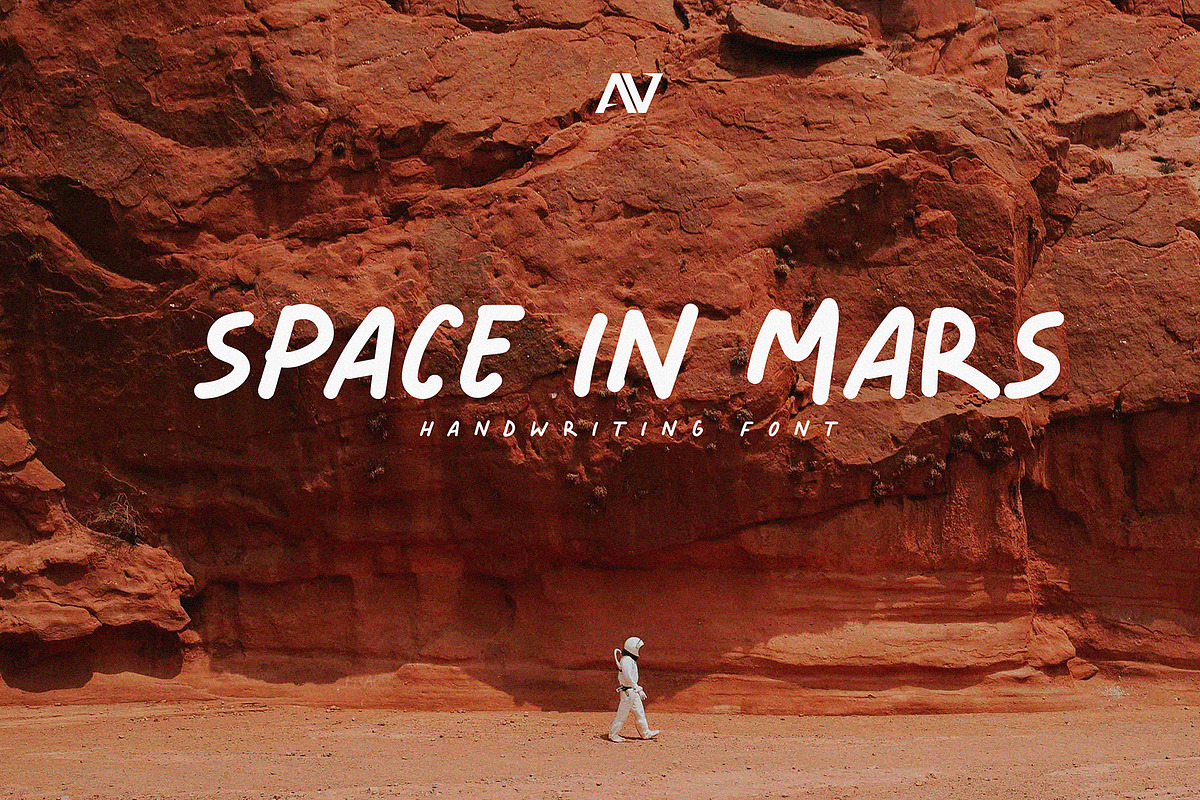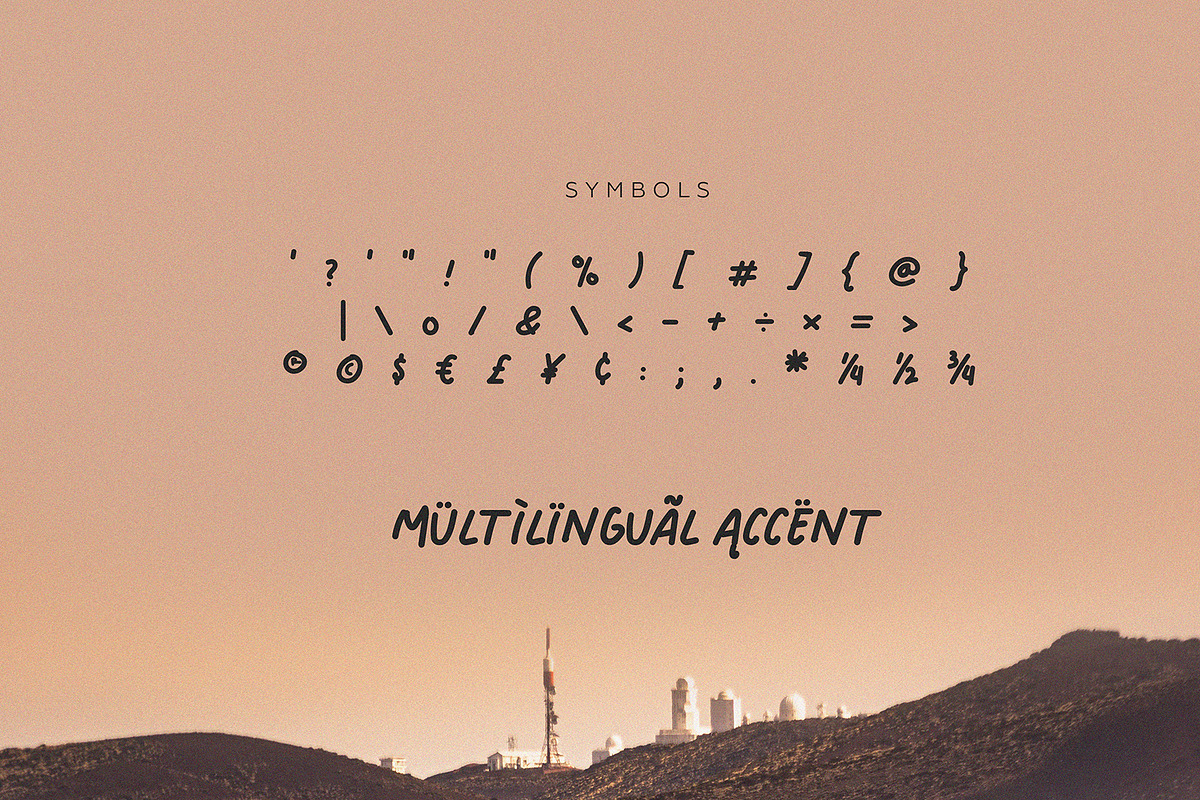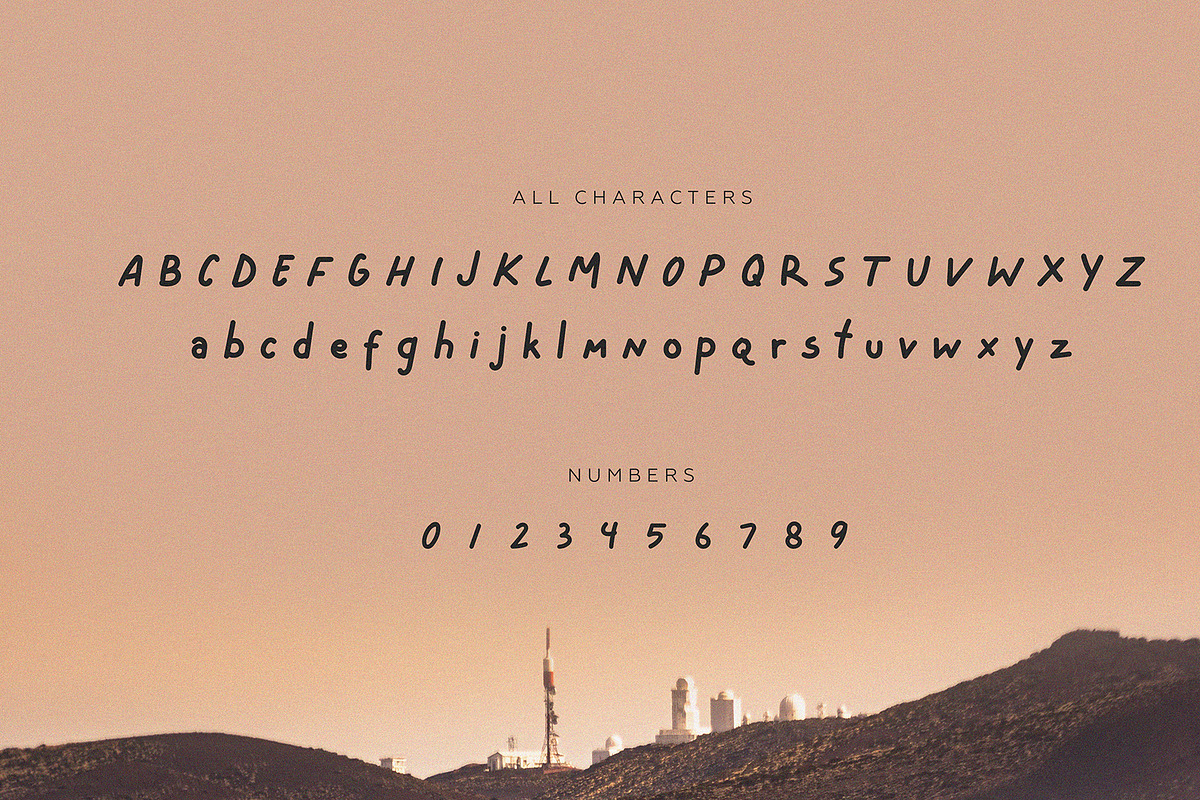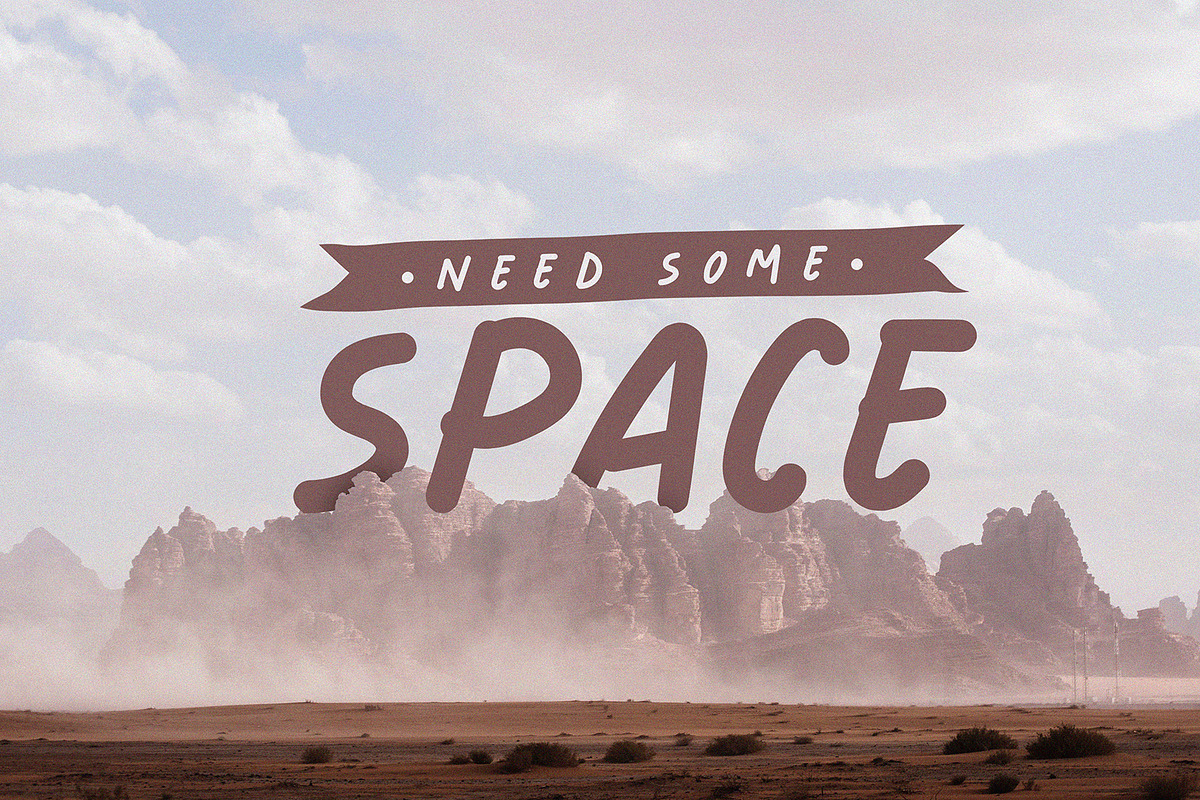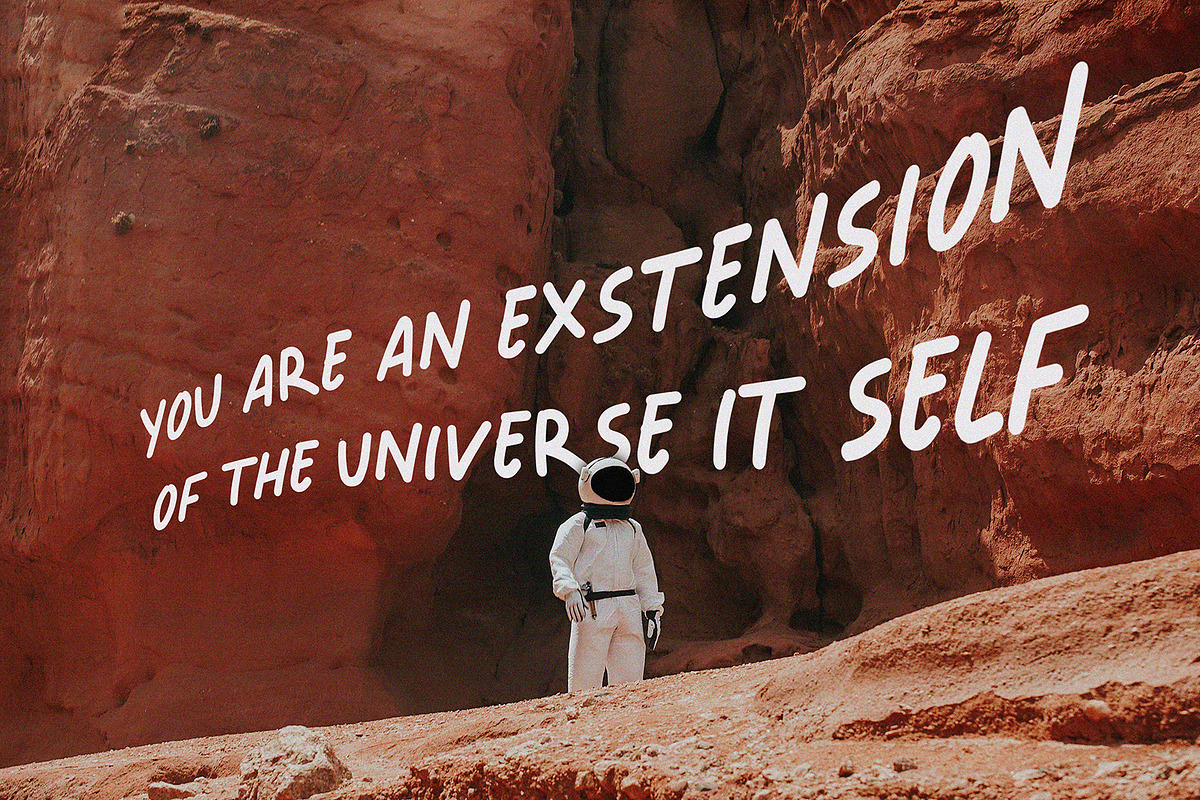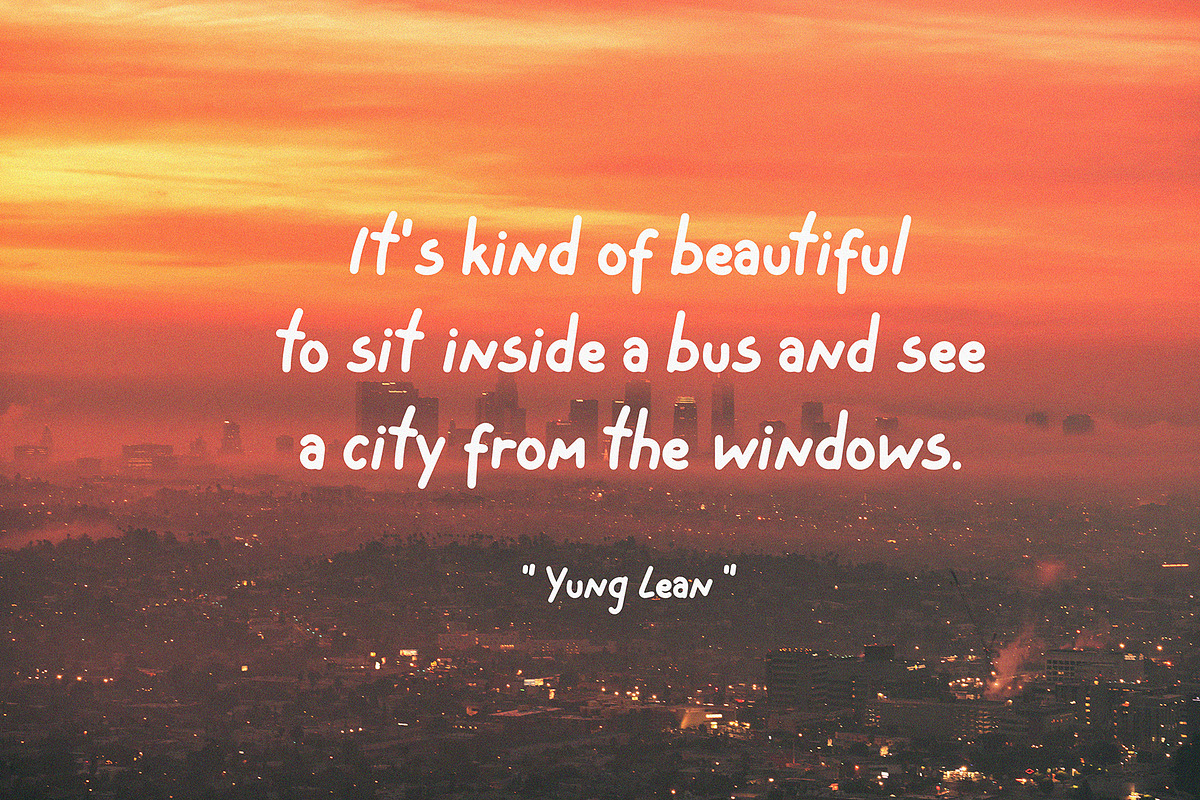
Space in Mars
Introduction our font. . . . Space in Mars is an handwriting font with special for your Design and will inspire you to create something playfully design. Space in Mars suitable for any design needs, branding design, urban design, modern advertising design, Cover Title, headlines, apparel and many more.